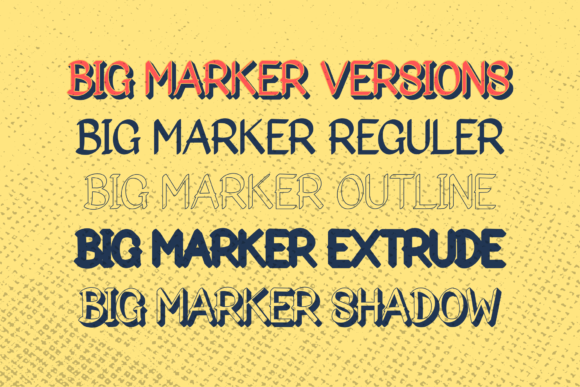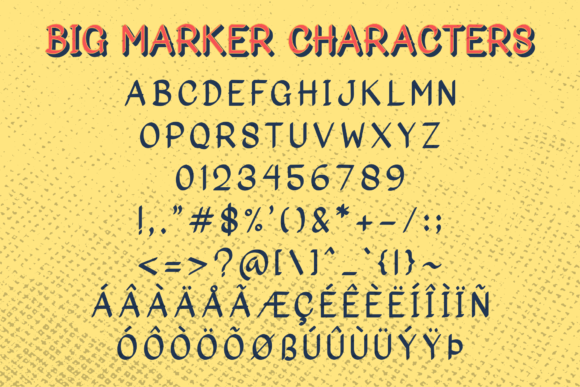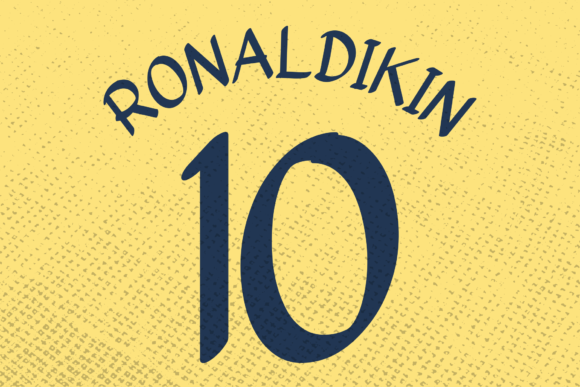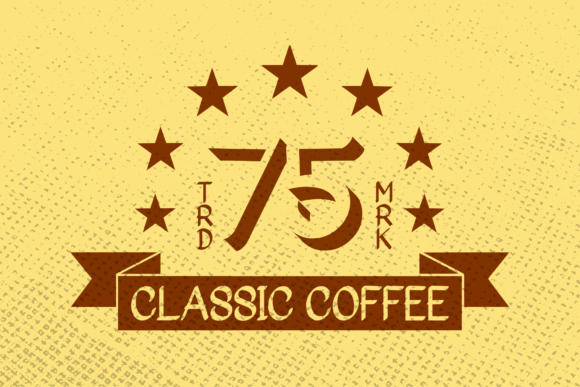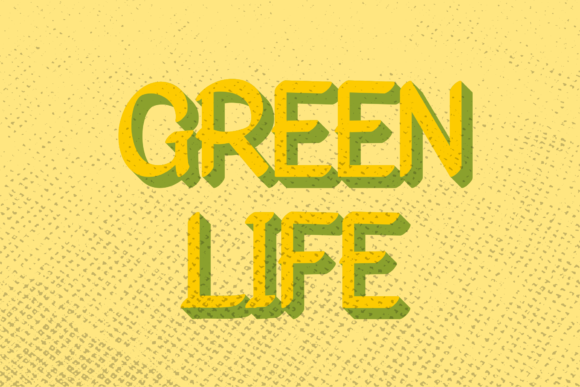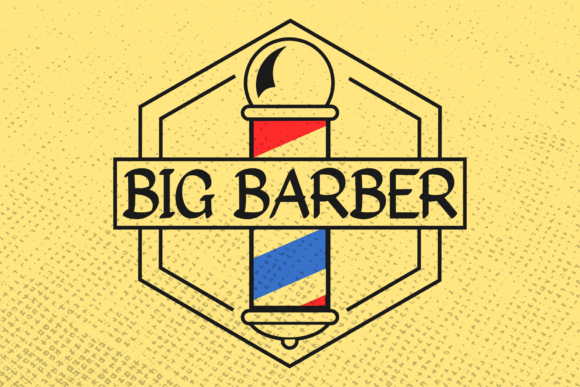
Unlocking Timeless Design with the Big Marker Family Font
You know that moment when you’re brainstorming ideas for a new project and everything just clicks? You’re scrolling through fonts, and suddenly, the perfect one jumps out at you. For designers, that ‘aha’ moment is what drives creativity and brings visions to life. And for many, it’s the Big Marker Family Font that sets their imagination ablaze.
The Big Marker Family Font is a layered font family that exudes a vintage charm and classic style, making it perfect for a wide range of applications, from logos and t-shirts to pamphlets and billboards. Its versatility and unique aesthetic have made it a favorite among designers looking to add a touch of nostalgia to their work.
Big Marker Family Font Key Features
- Font Family: Big Marker is a sans-serif font family designed for clear readability and modern aesthetic.
- Unique Characteristics: Big Marker features a unique blend of geometric and organic elements, resulting in a distinctive and modern appearance.
Big Marker Family Font Review
As a designer, I was excited to dive into the Big Marker Family Font and see what it has to offer. Overall, I think it’s a solid addition to any design toolbox, but it’s not without its limitations.
- Unique style: The Big Marker Family Font has a distinctive, bold style that’s perfect for creating eye-catching headlines and titles.
- Wide range of weights: The font comes in a variety of weights, from light to bold, making it easy to find the perfect fit for any design.
- Good legibility: Despite its bold style, the font is still easy to read, even at smaller font sizes.
- Not suitable for body text: While the font is great for headlines, it may not be the best choice for body text, as it can be overwhelming at larger font sizes.
- Limited language support: Unfortunately, the Big Marker Family Font only supports a limited range of languages, which may be a drawback for designers working on international projects.
- Not ideal for small font sizes: While the font is legible at larger sizes, it may become difficult to read at smaller font sizes, making it less suitable for designs where text is small.
Overall, I think the Big Marker Family Font is a great addition to any design toolbox, but it’s essential to use it judiciously. With its unique style and wide range of weights, it’s perfect for creating eye-catching headlines and titles, but it may not be the best choice for body text or smaller font sizes.
For best results, use the font in headings and titles, as it’s designed for bold and playful typography.
Use the Big Marker Family Font for titles, headings, and other text elements where you want to add a playful and bold touch.
The Big Marker Family Font is perfect for:
- Children’s book covers and illustrations.
- Party invitations and decorations.
- Playful logos and branding.
Remember to use the font in moderation, as it’s designed to be bold and playful.
Great Vibes Font is a modern, elegant script font ideal for creating a sophisticated and stylish look. It is perfect for use in titles, headings, and invitations. Great Vibes Font has a more refined and polished appearance compared to Big Marker Family Font, making it suitable for high-end designs.
Comparison: While Big Marker Family Font has a more playful and casual feel, Great Vibes Font is more formal and elegant. Great Vibes Font is also more versatile and can be used for a wide range of design applications.
Alex Brush Font is a beautiful, handwritten font that exudes a sense of warmth and personality. It is perfect for use in titles, headings, and body text where a more personal touch is desired. Alex Brush Font has a more organic and natural appearance compared to Big Marker Family Font, making it suitable for designs that require a human touch.